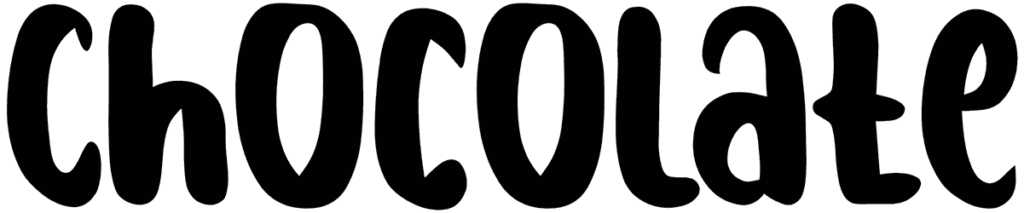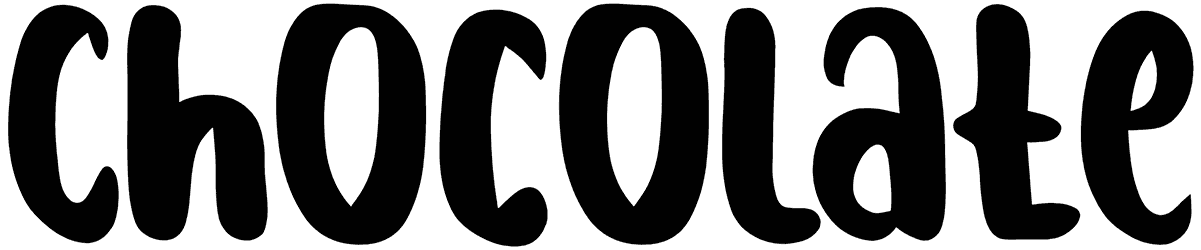
Chocolate Font
The soft and cute visual of a food font like this one will give a stunning form to your layout and make it more impressive. This playful font consists of funny and bold letters that could be fit for countless modern designs, from a daily Instagram post to a toy shop sign. Test the Chocolate font for your novel idea and surprise your viewers.